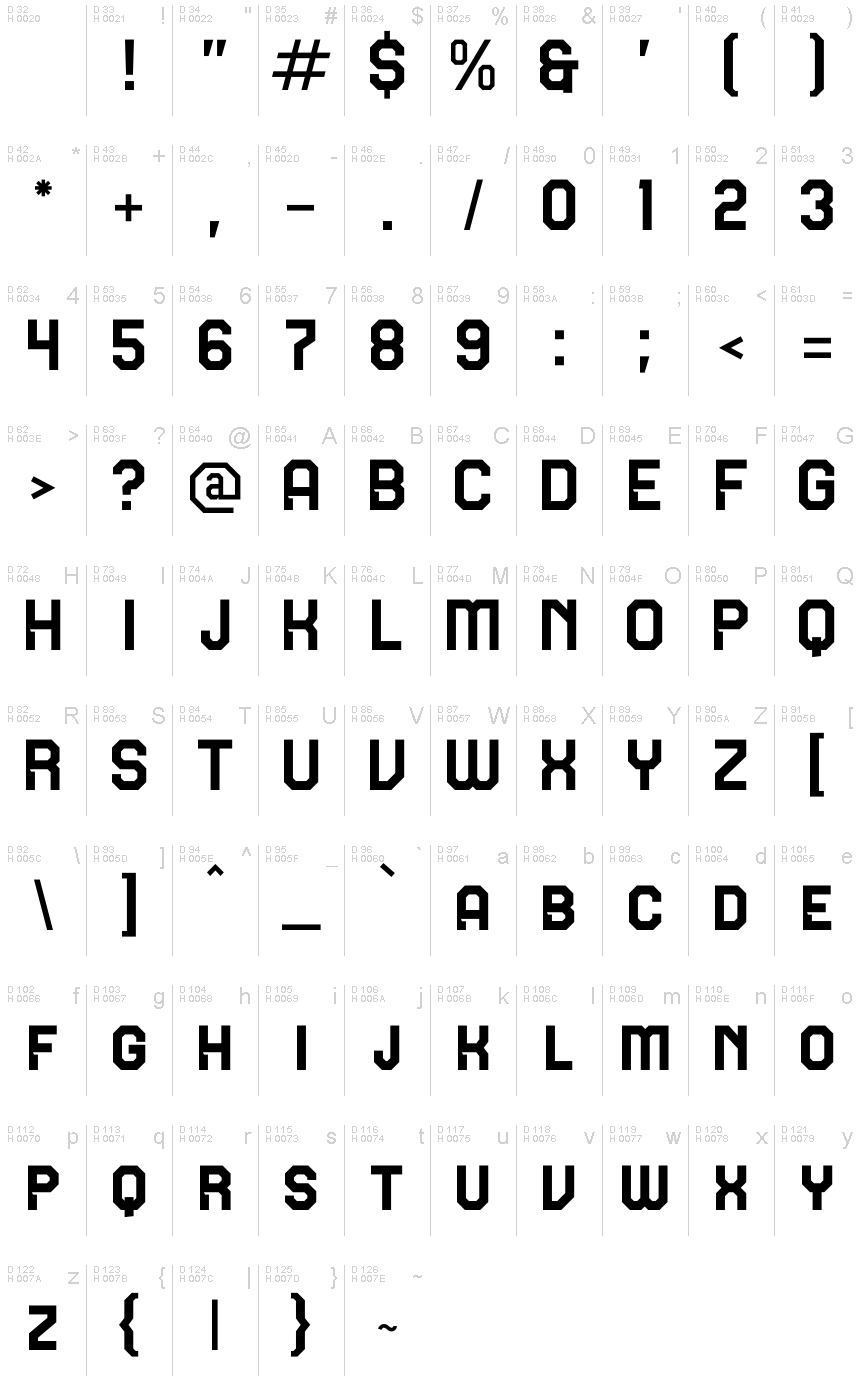
SMOKIND
Smokind. A captivating display font that beckons attention with its bold, techno-inspired aesthetic.
Crafted by the visionary team at Storytype Studio, this font exudes a striking industrial edge, its angular letterforms and dramatic weight evoking a sense of power and modernity. The Smokind typeface is a masterful blend of sleek, futuristic design and raw, unapologetic energy, making it an ideal choice for high-impact branding, packaging, and digital interfaces that demand a commanding visual presence.
Whether in headlines, logos, or attention-grabbing text, the Smokind font effortlessly commands the spotlight, seamlessly blending form and function to create a truly unforgettable typographic experience.